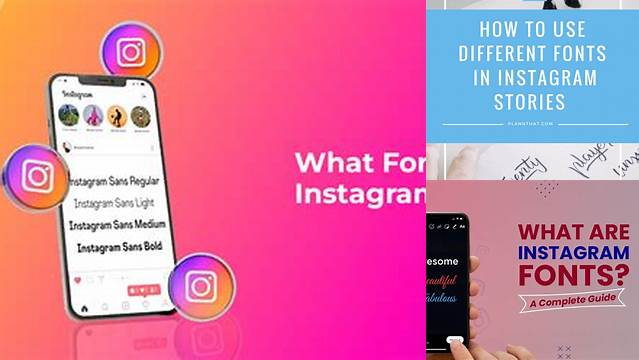
Instagram Stories: Use Different Fonts & Stand Out!
Instagram Stories are a fantastic way to share snippets of your life, connect with followers, and express your creativity. One of the easiest ways to spice up your stories is by using different fonts. But how do you exactly use different fonts on Instagram Stories? Don't worry, guys, this guide will walk you through everything you need to know, from the built-in options to third-party apps and websites that offer a wider variety of styles.
1. Understanding Instagram's Native Fonts
Let's start with the basics. Instagram offers a few built-in fonts that you can access directly within the app. These fonts are simple, reliable, and easy to use. To use different fonts on Instagram Stories using the native options, all you have to do is open the Stories feature, take a photo or video, and then tap the text tool. You'll see a row of font options at the bottom of the screen. Each font has its own unique style, from classic to modern, allowing you to add personality to your stories. Experiment with each one to see which best fits your aesthetic. Don't forget to play around with colors and sizes too! Remember that each font serves a different purpose – some are great for headlines, while others are perfect for adding captions or quotes. Using the right font can significantly enhance the visual appeal of your stories, making them more engaging and fun for your followers. Understanding these native fonts is the first step in mastering the art of Instagram Story typography. This is a crucial step to get you started.
2. Accessing the Text Tool in Instagram Stories
Before you can use different fonts on Instagram Stories, you need to know how to access the text tool. It's super simple! Once you've opened the Instagram app and navigated to the Stories feature (by swiping right on your home feed or tapping your profile picture), you can either take a new photo or video, or upload one from your camera roll. After you have your visual ready, look for the text icon at the top right corner of the screen. It usually looks like "Aa". Tap on it, and a text box will appear on your story. From here, you can start typing your message. The text tool allows you to add words, phrases, or even lengthy captions to your stories. It's the gateway to unleashing your creativity with fonts and making your stories more informative and engaging. Make sure you position the text box in a visually appealing spot on your story. You can drag it around, resize it by pinching, and even rotate it for a cool effect. Once you're comfortable with accessing the text tool, you're one step closer to mastering the art of Instagram Story typography.
3. Exploring Typewriter Font Options
The typewriter font is a popular choice for adding a touch of nostalgia and vintage charm to your Instagram Stories. To use different fonts on Instagram Stories, especially the typewriter font, select the text tool as described earlier. Among the native font options, you'll find one that resembles a typewriter's output. This font is perfect for creating a retro vibe, adding emphasis to a key point, or simply making your text stand out. Its monospaced design gives it a unique look, reminiscent of old-school typewriters. The typewriter font is great for when you want to convey a sense of authenticity or a throwback feel. Try using it for quotes, short anecdotes, or to highlight a specific word or phrase. You can also experiment with different colors and backgrounds to further enhance its impact. Remember that the typewriter font, while stylish, might not be suitable for lengthy paragraphs due to its readability. Use it sparingly and strategically to get the most out of its retro aesthetic. It is a very great choice for retro content.
4. Utilizing the Neon Font Style
The neon font style is perfect for creating eye-catching and vibrant Instagram Stories. When you want to use different fonts on Instagram Stories to really grab attention, the neon option is your go-to. Access the text tool and look for the font that has a glowing, neon-like appearance. This font adds a modern, edgy touch to your stories, making them pop with color and light. It's especially effective for announcements, promotions, or highlighting important information. The neon font works best against darker backgrounds, as the contrast enhances its glowing effect. Experiment with different colors to find the perfect combination that matches your story's theme. Keep in mind that the neon font can be a bit overwhelming if overused, so try to use it strategically for key messages or short phrases. This font is a fantastic way to add a touch of energy and excitement to your Instagram Stories, making them more visually appealing and engaging for your followers. This is a good way to add an energetic mood to your stories.
5. Mastering the Strong Font for Emphasis
When you need to use different fonts on Instagram Stories to really make a point, the strong font is your best friend. This font, often bold and impactful, is designed to draw attention to specific words or phrases. To access it, simply open the text tool and select the font that appears thicker and more prominent than the others. The strong font is ideal for headlines, subheadings, or highlighting key takeaways in your stories. It's a great way to break up text and guide your viewers' eyes to the most important information. Experiment with different colors and sizes to further enhance its impact. Just remember to use it sparingly, as too much bold text can be overwhelming. A well-placed strong font can add emphasis and clarity to your stories, making them more engaging and easier to understand. This is very important for emphasis.
6. Employing Classic Fonts for Readability
Sometimes, the best way to use different fonts on Instagram Stories is to stick with the classics. Classic fonts are timeless and easy to read, making them perfect for longer captions or when you want to ensure your message is clear and accessible. These fonts typically have a simple, clean design that doesn't distract from your visuals. When choosing a classic font, look for options that are easy on the eyes and don't have excessive ornamentation. Fonts like Arial, Helvetica, or similar sans-serif styles are great choices. Use classic fonts when you want to prioritize readability and ensure your audience can easily understand your message. They're also a good option for more serious or professional content. While they may not be as flashy as some of the other font options, classic fonts are a reliable choice for conveying information effectively. This is very useful to ensure your message is clear and accessible.
7. Finding Comic Fonts for a Fun Vibe
If you're aiming for a playful and lighthearted feel, comic fonts are the way to go. To use different fonts on Instagram Stories and inject some fun into your content, explore comic-style font options. These fonts often feature rounded edges, whimsical shapes, and a generally informal appearance. They're perfect for adding a touch of humor, excitement, or silliness to your stories. Comic fonts work well for personal anecdotes, funny captions, or when you want to create a more approachable and engaging tone. Just be mindful of your overall brand and audience when using comic fonts, as they may not be appropriate for all types of content. But if you're looking to lighten the mood and add a bit of fun to your Instagram Stories, comic fonts are a great choice. This is perfect for adding a touch of humor to your content.
8. Utilizing Third-Party Apps for More Fonts
Instagram's built-in fonts are useful, but if you want to use different fonts on Instagram Stories with more variety, third-party apps are your best bet. Numerous apps are available that offer a wide range of font styles, from elegant scripts to bold display fonts. These apps typically work by allowing you to create your text within the app and then copy and paste it into your Instagram Story. Some popular options include Fontsy, Cool Fonts, and TextArt. When using third-party apps, be sure to choose fonts that are legible and complement your visual content. Also, keep in mind that some apps may require a subscription or in-app purchases to access all of their features. But with a little exploration, you can find an app that offers the perfect fonts to elevate your Instagram Stories. This is a great option if you want more variety.
9. Exploring Fontsy App Features
Fontsy is a popular third-party app that offers a wide selection of fonts for Instagram Stories. To use different fonts on Instagram Stories with Fontsy, simply download the app and start creating your text. Fontsy's interface is user-friendly, making it easy to browse and select from a variety of font styles. You can also customize the size, color, and alignment of your text. Once you're happy with your design, simply copy and paste it into your Instagram Story. Fontsy also offers additional features like text effects and background options, allowing you to further customize your creations. Many users appreciate Fontsy for its ease of use and the sheer number of fonts available. If you're looking to add some flair to your Instagram Stories, Fontsy is definitely worth checking out. It is easy to use with a lot of fonts.
10. Discovering Cool Fonts App Options
Cool Fonts is another excellent app for expanding your font options on Instagram Stories. If you want to use different fonts on Instagram Stories and want to try something new, Cool Fonts is a solid choice. This app provides a diverse range of fonts, including stylish, quirky, and elegant designs. Like Fontsy, Cool Fonts allows you to create your text within the app and then copy and paste it into your Instagram Story. Cool Fonts also offers a variety of symbols and emojis that you can add to your text, making it even more expressive. The app is regularly updated with new fonts, so you'll always have fresh options to choose from. Cool Fonts is a great way to add personality and creativity to your Instagram Stories. This app is another option to have stylish fonts.
11. Using TextArt for Creative Text Designs
TextArt is a versatile app that goes beyond just offering different fonts. If you aim to use different fonts on Instagram Stories and create visually stunning text designs, TextArt is your go-to app. This app allows you to create unique text graphics with various effects, backgrounds, and styles. You can choose from a wide range of fonts, add shadows, gradients, and textures, and even create 3D text effects. TextArt also offers a library of pre-designed templates that you can customize to fit your needs. With TextArt, you can create eye-catching text designs that will really make your Instagram Stories stand out. If you're looking for a more advanced text editing tool, TextArt is a great option. This app is very versatile because it can be used to create unique text graphics.
12. Copy-Pasting Fonts from Websites
Another way to use different fonts on Instagram Stories is by copying and pasting them from websites. Several websites offer a variety of unique and stylish fonts that you can generate and then copy into your Instagram Story text box. These websites often use Unicode characters to create these fonts, which means they're essentially symbols that resemble letters. To use this method, simply visit one of these websites, type your text into the generator, and then copy the generated text. Paste the text into your Instagram Story, and you'll have a unique font that's different from the built-in options. Keep in mind that some of these fonts may not be compatible with all devices or platforms, so it's always a good idea to test them out before posting. It is a good idea to test them out before posting.
13. Exploring LingoJam Font Generator
LingoJam is a popular website that offers a variety of font generators for Instagram Stories. If you want to use different fonts on Instagram Stories, LingoJam is a helpful website to try. To use it, simply visit the LingoJam website, select the "Instagram Fonts" generator, and type your text into the input box. The website will then generate a variety of different font styles that you can copy and paste into your Instagram Story. LingoJam is easy to use and offers a wide range of font options, making it a great resource for adding some flair to your Instagram Stories. It is easy to use because of the variety of font options.
14. Using Instagram Fonts Generator Online
Instagram Fonts Generator is another handy online tool for creating unique fonts for your stories. To use different fonts on Instagram Stories with this generator, just type your desired text into the input field on the website. The generator will then display a list of various font styles you can copy and paste directly into your Instagram Story. This tool is a quick and easy way to experiment with different fonts and add a personal touch to your content. It is very easy and quick to add a personal touch to your content.
15. Stylish Text Generator for Instagram
The Stylish Text Generator is a web-based tool that offers a wide array of fancy text styles perfect for Instagram Stories. If you're looking to use different fonts on Instagram Stories and make your text stand out, this generator is worth exploring. Simply type your text, choose a style, and copy the result to paste into your story. With its user-friendly interface and diverse font options, it's a great resource for adding a unique touch to your Instagram posts. It has a user-friendly interface with diverse font options.
16. Understanding Unicode Fonts Limitations
While Unicode fonts can be a fun way to use different fonts on Instagram Stories, it's important to understand their limitations. Unicode fonts are essentially symbols that resemble letters, rather than actual fonts. This means that they may not be supported by all devices or platforms. Additionally, Unicode fonts can sometimes be difficult to read, especially on smaller screens. It's always a good idea to test your Unicode fonts on different devices before posting to ensure that they're displaying correctly and are easy to read. This is important to be considered before posting.
17. Ensuring Font Compatibility Across Devices
When you use different fonts on Instagram Stories, one crucial thing to keep in mind is font compatibility across various devices. Not all fonts display correctly on every phone or tablet. To ensure your message is clear to everyone, test your stories on different devices before posting. If a font isn't displaying correctly, opt for a more universal option or stick to Instagram's native fonts. This small step can make a big difference in your audience's viewing experience. This can make a big difference in your audience’s viewing experience.
18. Checking Font Readability on Small Screens
Another essential aspect when you use different fonts on Instagram Stories is to check how readable your chosen font is, especially on smaller screens. Some fonts might look great on a larger display but become illegible on a smartphone. Always preview your story on a mobile device to ensure the font size and style are easily readable. Choose fonts that are clear, simple, and have adequate spacing to avoid straining your viewers' eyes. This will help you maintain a smooth and engaging viewing experience for your audience. This will help you maintain a smooth and engaging viewing experience.
19. Optimizing Font Size for Mobile Viewing
When creating Instagram Stories, it's crucial to optimize your font size for mobile viewing. Remember, most of your audience will be viewing your content on their smartphones. To use different fonts on Instagram Stories effectively, ensure your text is large enough to be easily read without zooming in. Avoid using overly small fonts that can strain the eyes. Experiment with different font sizes and test them on a mobile device to find the perfect balance. Clear, legible text will significantly improve the viewing experience for your followers. This is very important to avoid eye strain.
20. Adding Drop Shadows for Text Clarity
Adding a drop shadow to your text can significantly improve its clarity, especially when using decorative or script fonts. If you want to use different fonts on Instagram Stories and ensure they stand out, a drop shadow is a simple yet effective technique. This effect creates a subtle separation between the text and the background, making it easier to read. Most third-party apps offer drop shadow options, allowing you to customize the color, distance, and blur of the shadow. Experiment with different settings to find the perfect balance that enhances your text without being too distracting. This is very simple and very effective technique.
21. Using Background Colors Behind Text
Using background colors behind your text is another great way to enhance readability and make your message pop. When you use different fonts on Instagram Stories, pairing them with a complementary background color can make a world of difference. This technique is particularly useful when your story's background is busy or distracting. Most apps offer options to add a solid or semi-transparent background behind your text, allowing you to create a clear and visually appealing contrast. Experiment with different colors to find the perfect combination that aligns with your story's aesthetic. It makes a world of difference when used properly.
22. Applying Text Highlighting Techniques
Text highlighting is a fantastic way to draw attention to specific words or phrases in your Instagram Stories. If you want to use different fonts on Instagram Stories and emphasize key information, consider using highlighting techniques. This can be as simple as changing the color of certain words, adding a background color behind them, or using a bold font style. Highlighting helps guide your viewers' eyes to the most important parts of your message, making your stories more engaging and informative. It helps guide your viewers’ eyes.
23. Animating Text for Dynamic Stories
Animating text can add a dynamic and engaging element to your Instagram Stories. To use different fonts on Instagram Stories and make them more visually appealing, consider incorporating text animations. Several apps offer features that allow you to animate your text, creating effects like fade-ins, slide-ins, and typewriter-style reveals. Animated text can capture your audience's attention and make your stories more memorable. Experiment with different animation styles to find what works best for your content. This can capture your audience’s attention.
24. Matching Fonts to Your Brand Identity
When you use different fonts on Instagram Stories, it's essential to choose fonts that align with your brand identity. Your font choices should reflect your brand's personality and values. If you have a sophisticated brand, opt for elegant and classic fonts. If your brand is playful and fun, choose whimsical and quirky fonts. Consistency in your font choices will help reinforce your brand identity and make your stories more recognizable. It helps reinforce your brand identity.
25. Maintaining Consistency in Font Usage
Consistency is key when it comes to font usage in your Instagram Stories. While it's fun to use different fonts on Instagram Stories, try to maintain a consistent style throughout your content. Avoid using too many different fonts in a single story, as this can look cluttered and unprofessional. Stick to a maximum of two or three fonts per story and use them strategically to create visual hierarchy and emphasis. It can look cluttered and unprofessional when too many fonts are used.
26. Avoiding Overcrowding Text on Stories
One common mistake people make when they use different fonts on Instagram Stories is overcrowding their stories with too much text. Remember, Instagram Stories are meant to be visually appealing and easy to digest. Avoid cramming too much text into a single story, as this can overwhelm your viewers and make it difficult for them to focus on your message. Keep your text concise and break it up into smaller, more manageable chunks. It can overwhelm your viewers when there is too much text.
27. Creating Visual Hierarchy with Font Sizes
Creating visual hierarchy with font sizes is a crucial aspect of effective Instagram Story design. When you use different fonts on Instagram Stories, use font sizes strategically to guide your viewers' eyes and emphasize important information. Use larger fonts for headlines and subheadings, and smaller fonts for body text. This will help create a clear visual structure that makes your stories easier to read and understand. This will make your stories easier to read and understand.
28. Using Emojis to Complement Fonts
Emojis can be a fun and effective way to complement your fonts in Instagram Stories. If you want to use different fonts on Instagram Stories and add some personality, consider incorporating emojis into your text. Emojis can help convey emotion, add visual interest, and break up long blocks of text. Just be sure to use them sparingly and in a way that enhances your message, rather than distracting from it. This can add some personality to your content.
29. Testing Your Stories Before Posting
Before you post your Instagram Story, always take a moment to test it out. This is especially important when you use different fonts on Instagram Stories, as you want to ensure that your fonts are displaying correctly and are easy to read on different devices. View your story on your own phone and, if possible, ask a friend to view it on their phone as well. This will help you catch any potential issues before your story goes live. This will help you catch any potential issues.
30. Staying Updated with Instagram Font Trends
To keep your Instagram Stories fresh and engaging, stay updated with the latest font trends. The design world is constantly evolving, and new fonts are always emerging. Following design blogs, social media accounts, and typography resources can help you stay informed about the latest trends and inspire you to use different fonts on Instagram Stories in creative and innovative ways. This can help inspire you to be more creative and innovative.